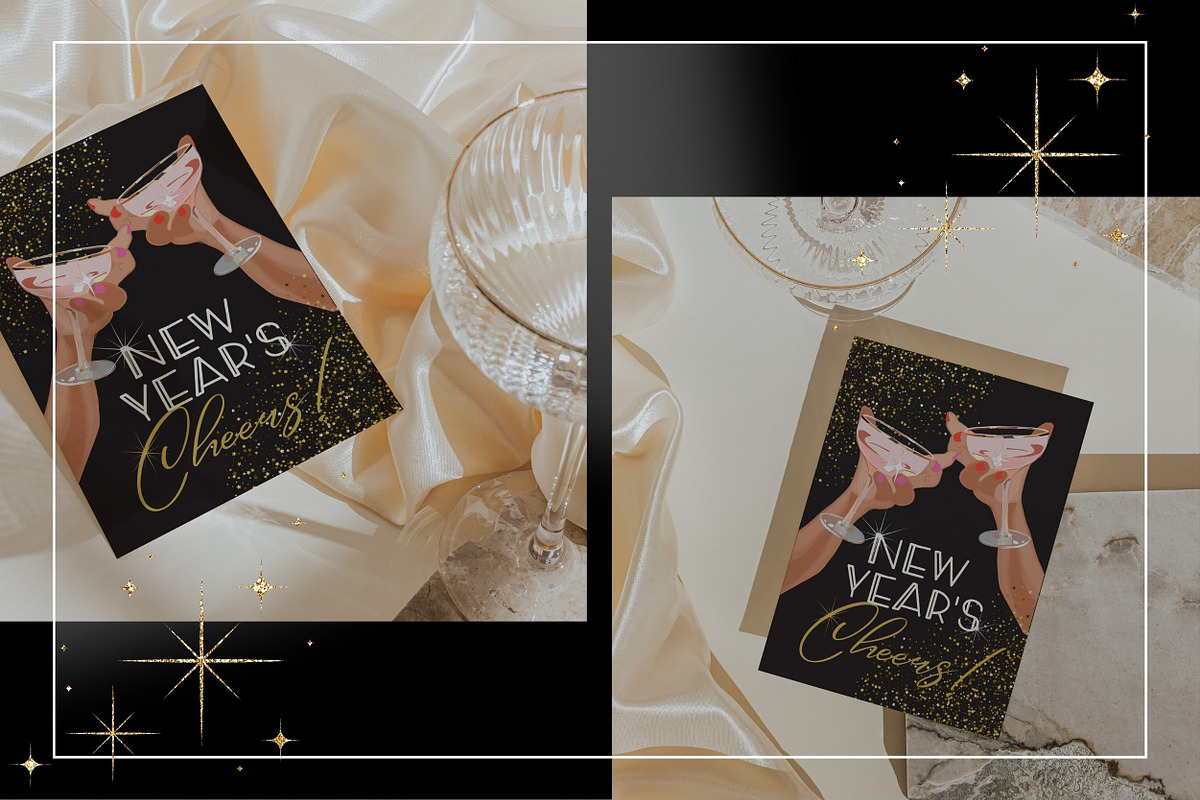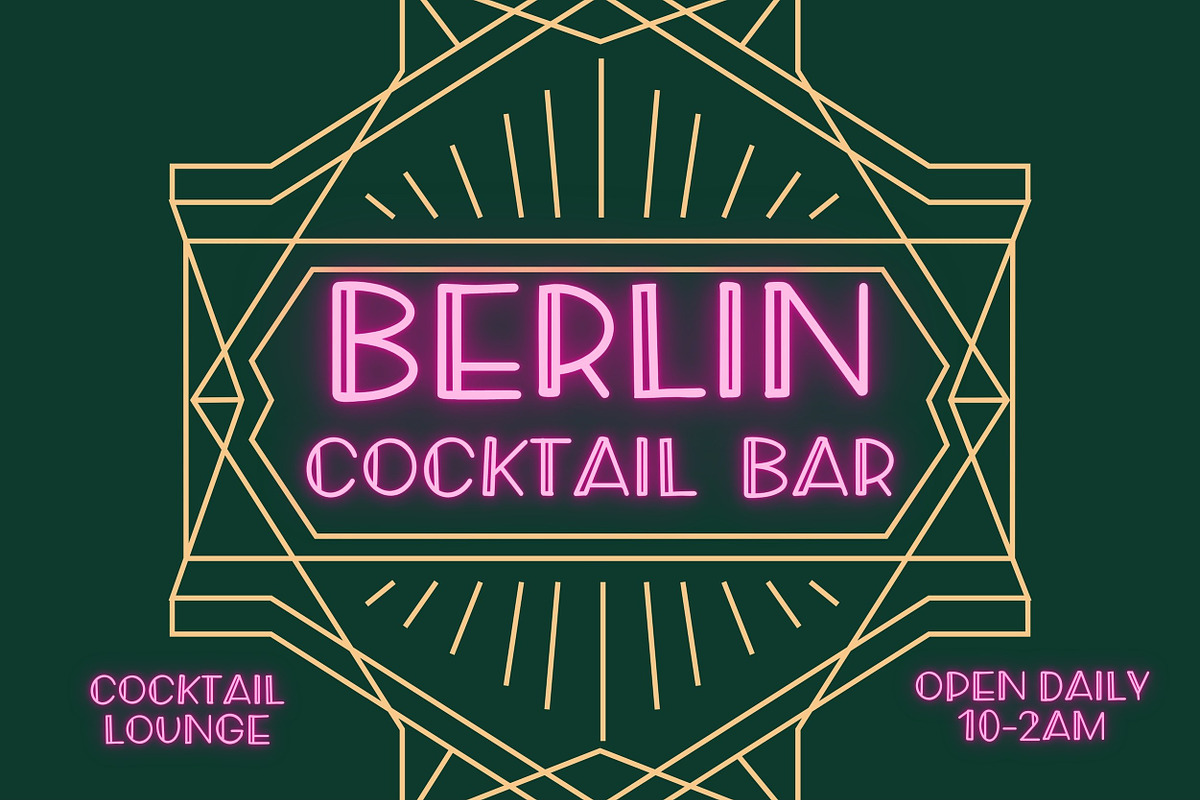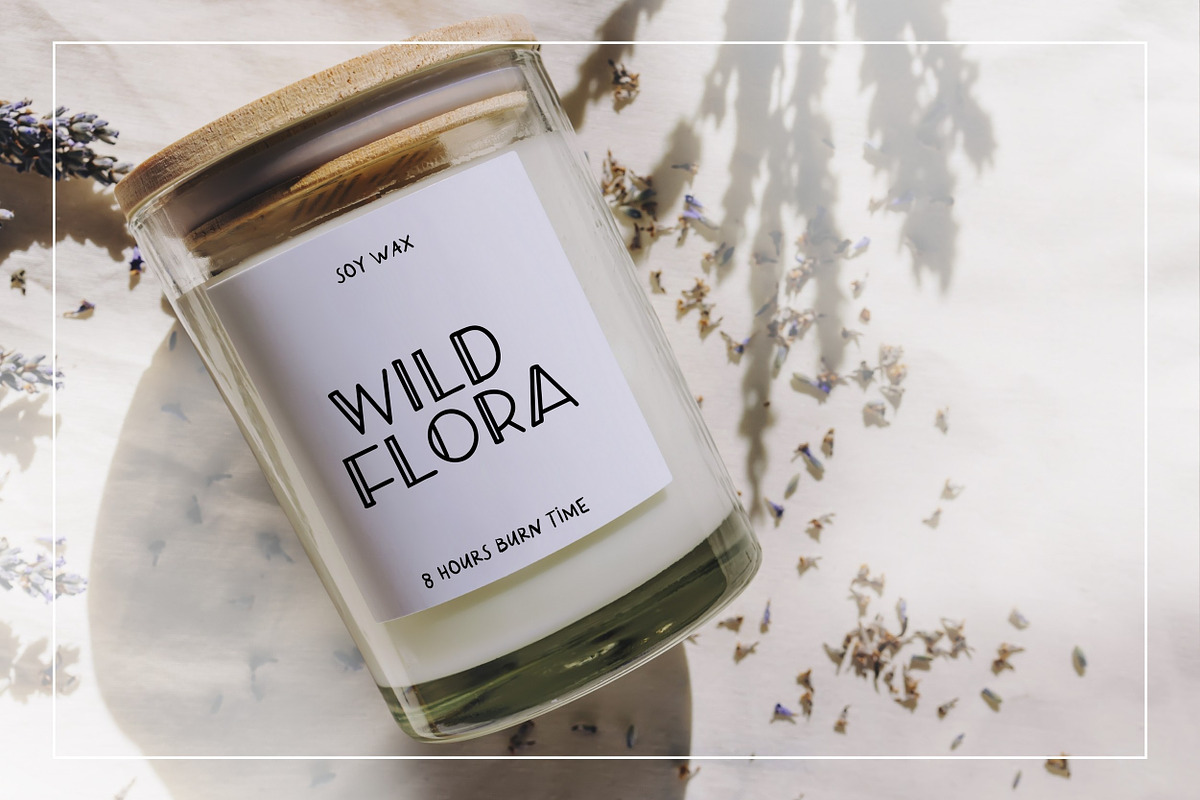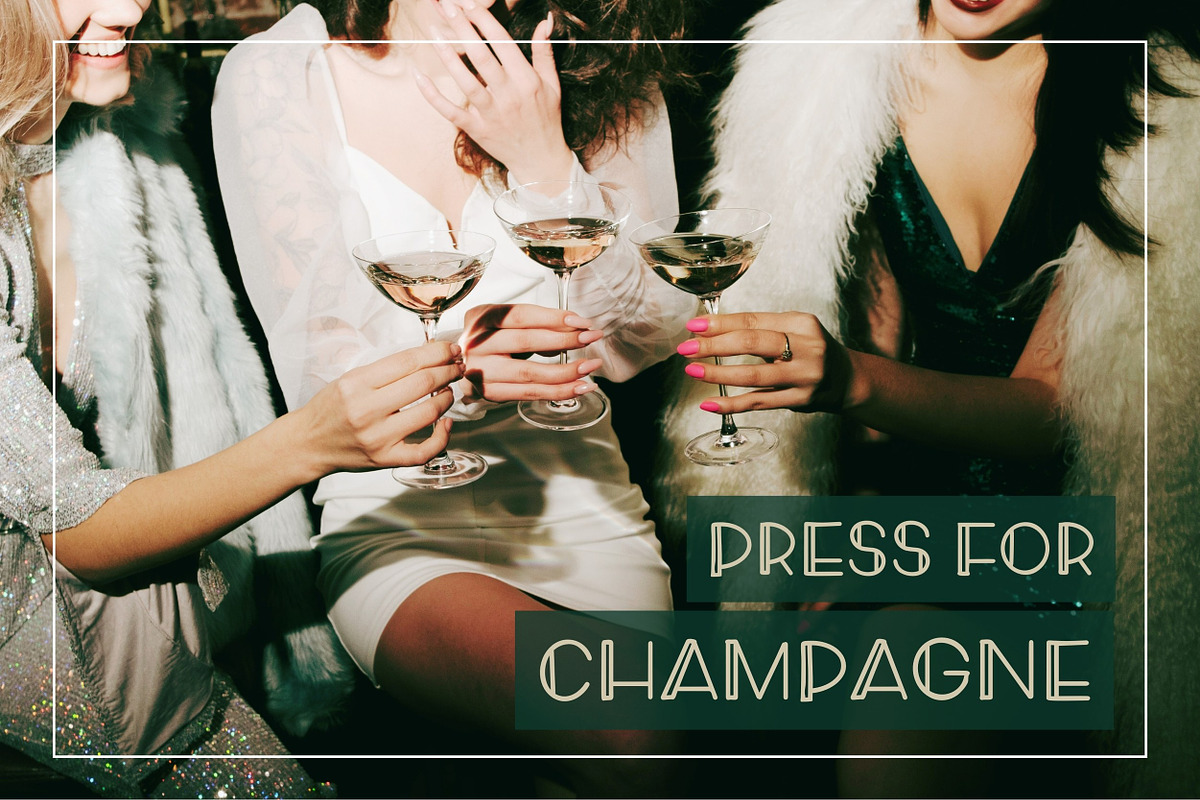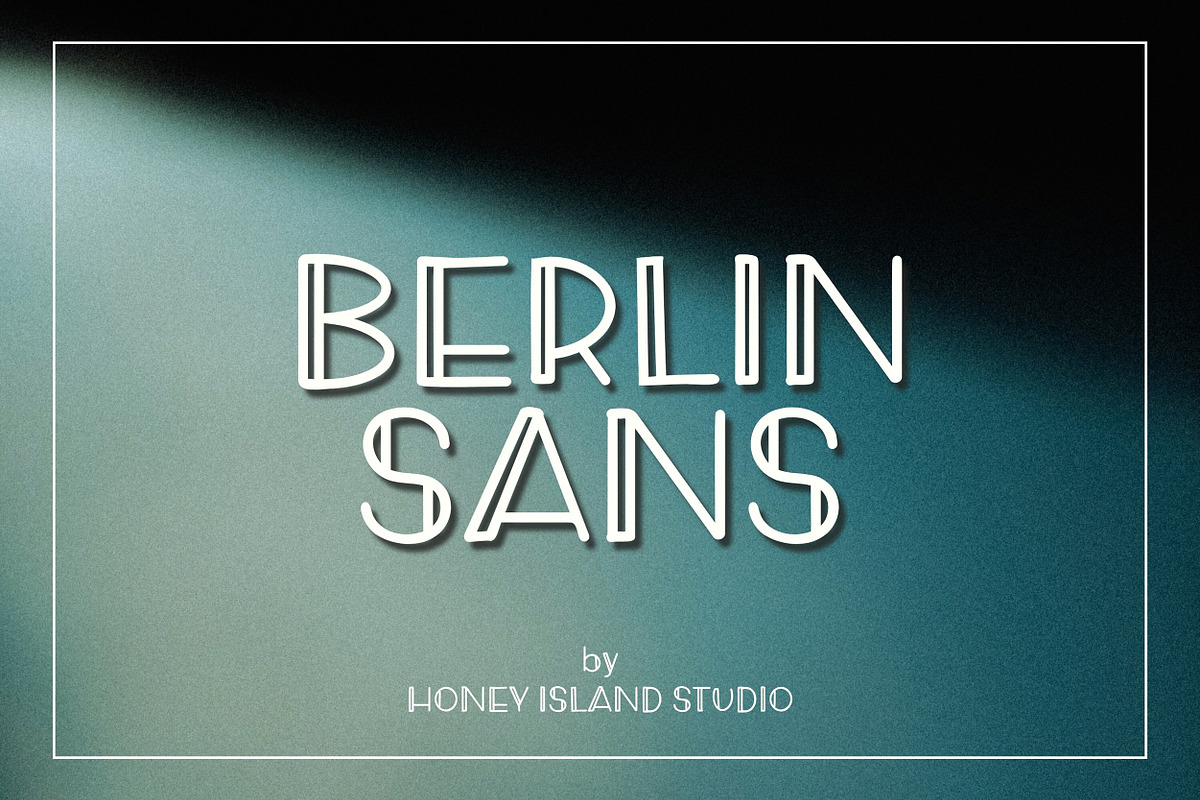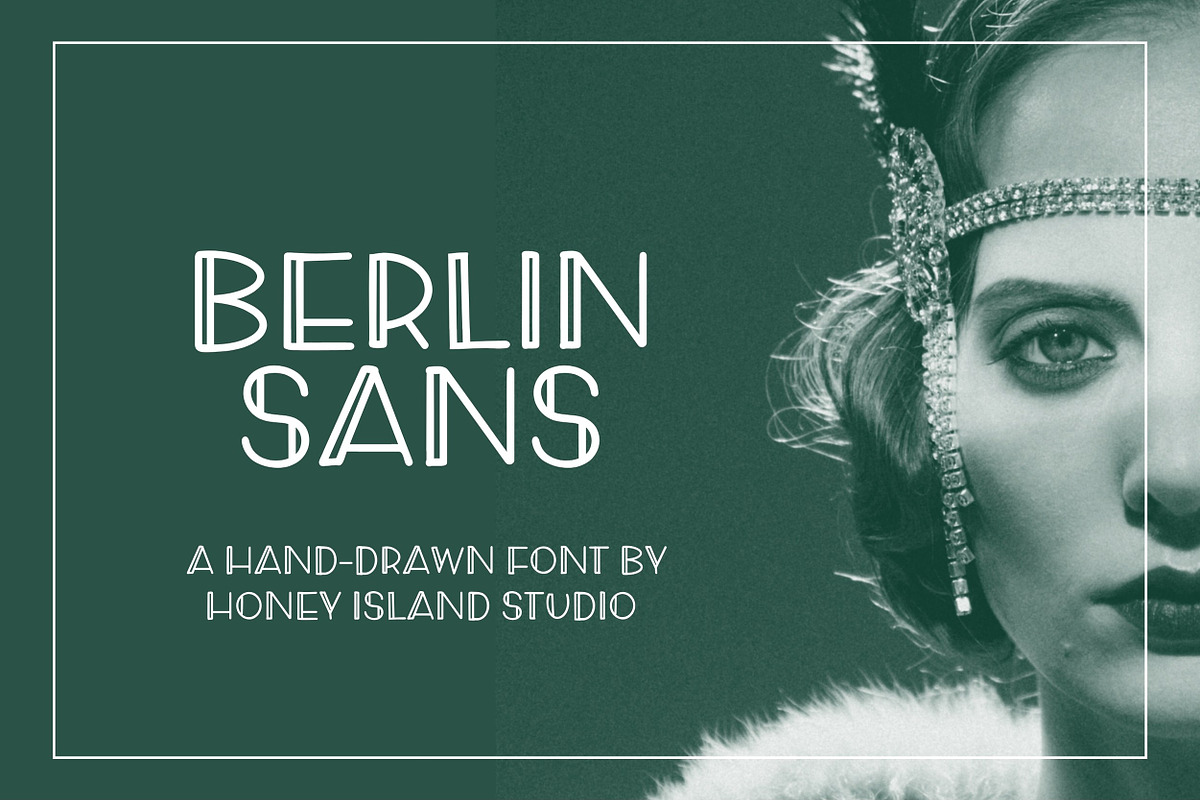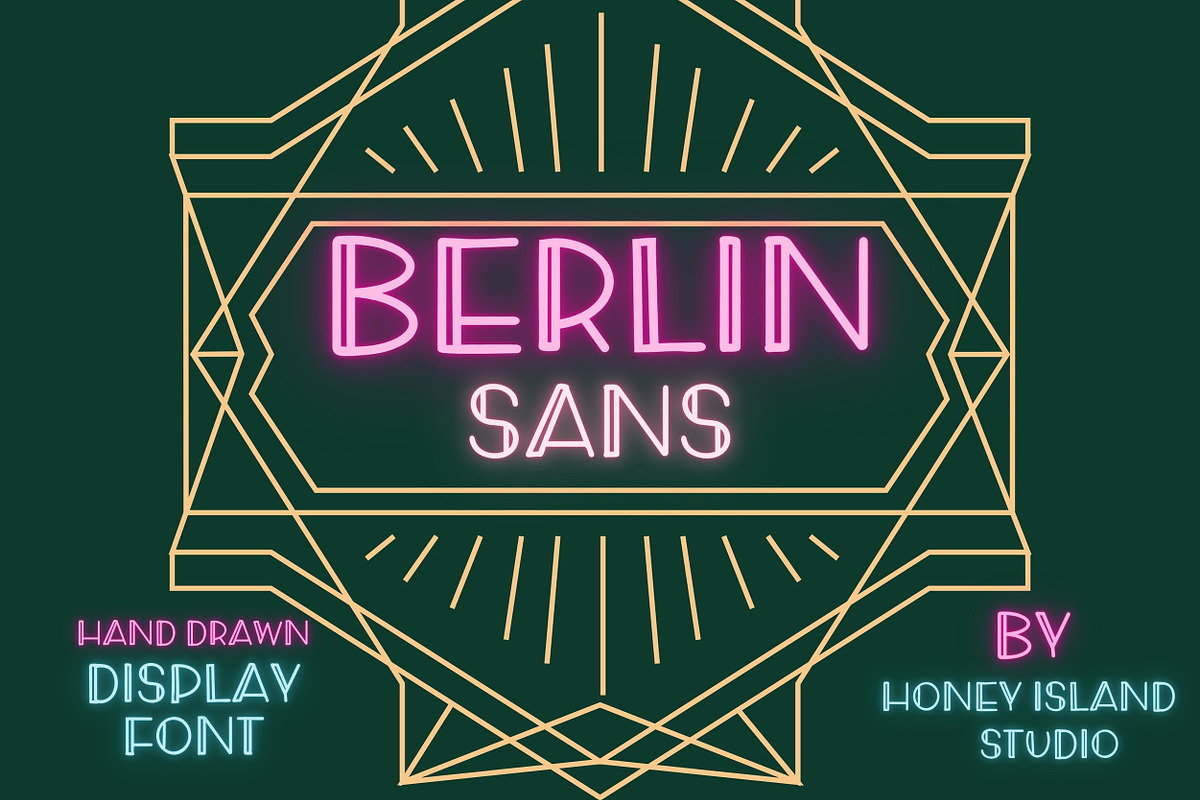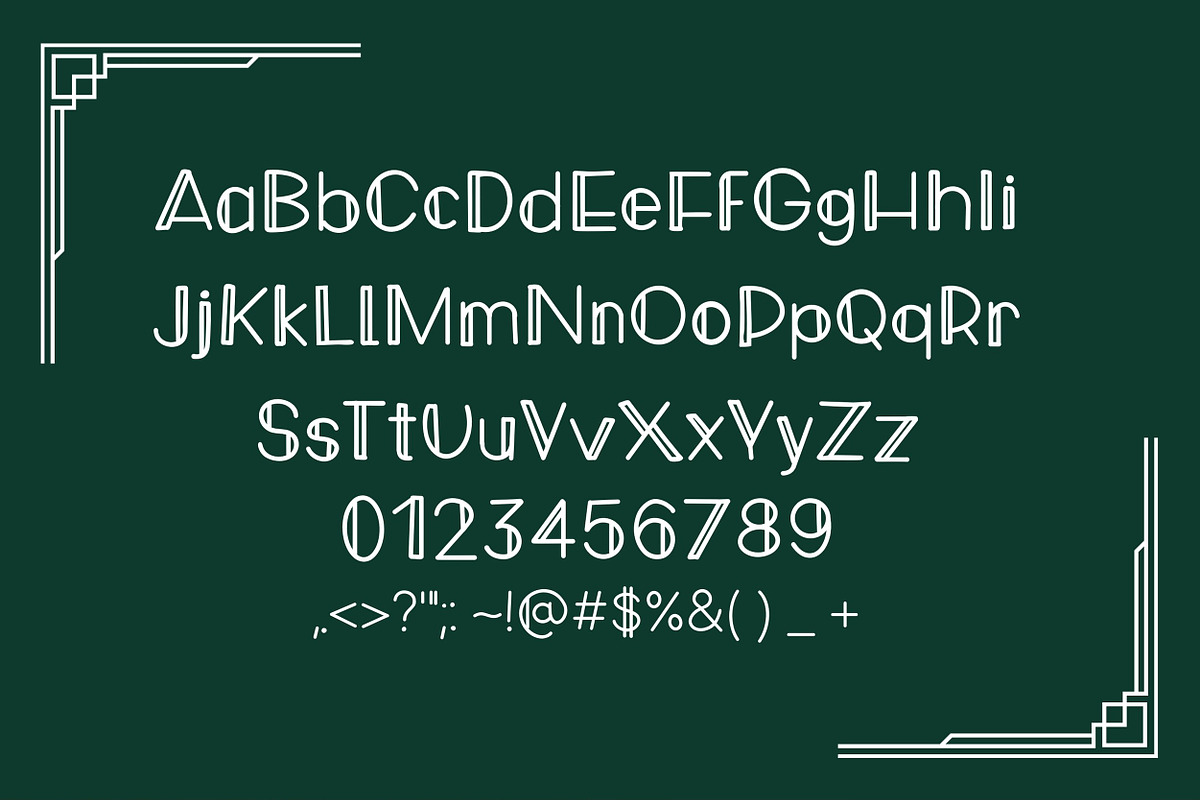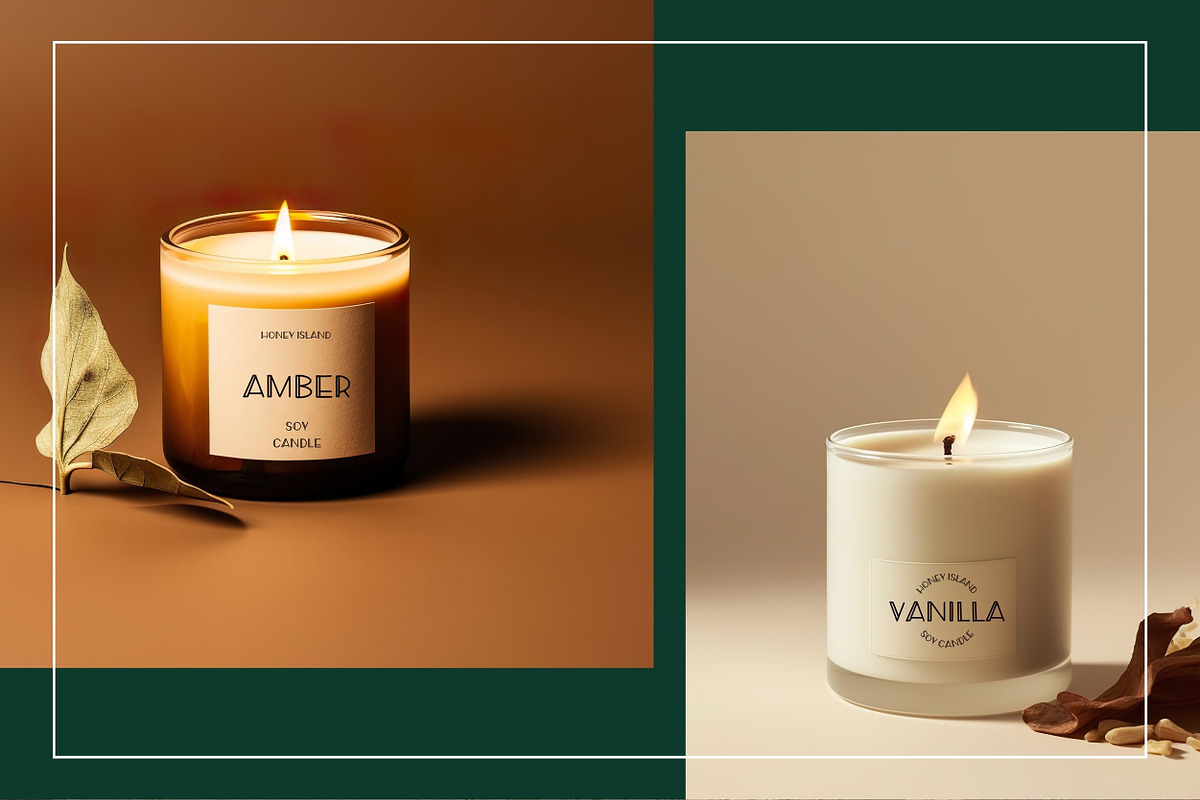
Art Deco Hand Drawn Font Berlin Sans
Art Deco Hand Drawn Font - Berlin Sans
Channel the elegance of the roaring '20s with Berlin Sans, a hand-drawn Art Deco font that blends vintage charm with modern flair! Inspired by the iconic typography of Berlin’s golden age, this stylish typeface features sleek lines, geometric shapes, and a touch of handcrafted character. Perfect for posters, invitations, branding, and more, Berlin Sans adds a sophisticated yet artistic touch to any project.